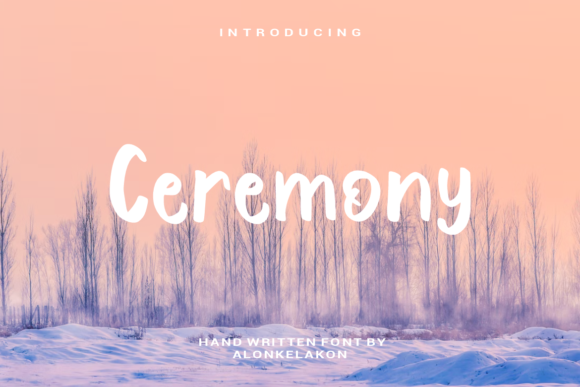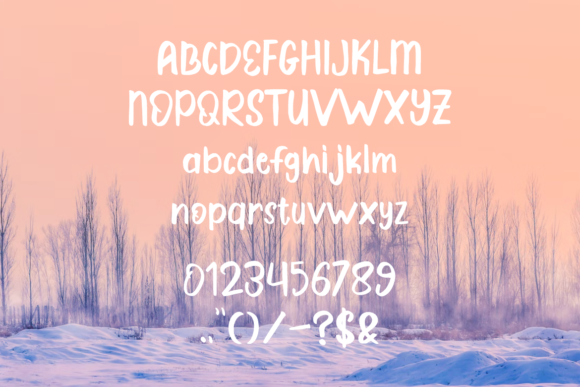
Ceremony Font
About Ceremony Font
“Ceremony” is a sweet and delicate handwritten font that radiates a sense of daintiness and joy. This font is perfectly suited for crafting wedding invitations, cards, or any design project that requires a romantic and personalized touch. Its delicate strokes and graceful appearance make it an ideal choice for capturing the essence of special occasions and romantic sentiments.
The soft and refined quality of “Ceremony” adds a touch of elegance to your text, creating a harmonious and romantic atmosphere. Whether you’re designing wedding stationery, love-themed cards, or any other project that aims to convey heartfelt emotions, this font effortlessly infuses a sense of sweetness and intimacy.
The handwritten charm of “Ceremony” contributes to its versatility, making it suitable for various romantic and celebratory contexts. The font’s ability to evoke a personalized feel enhances its appeal for projects where a distinctive and sentimental touch is desired.
In the realm of wedding invitations, “Ceremony” shines as a font that not only communicates the essential details but also encapsulates the emotions and joy associated with the celebration of love. Its delicate and joyful nature ensures that your designs resonate with the romantic spirit of such special moments.
In summary, “Ceremony” goes beyond being just a font; it becomes a tool for capturing the delicate and joyful nuances of romantic occasions. Whether it’s wedding invitations, cards, or other designs, this sweet and delicate handwritten font is your go-to choice for infusing a personalized and romantic touch into your creative projects.